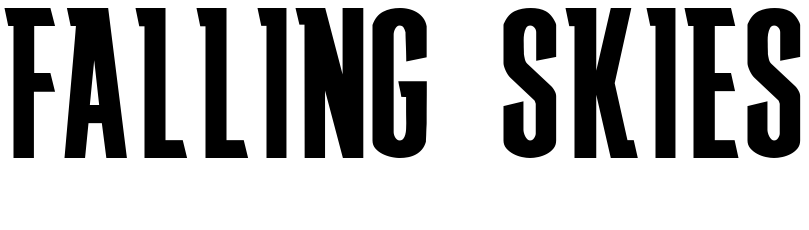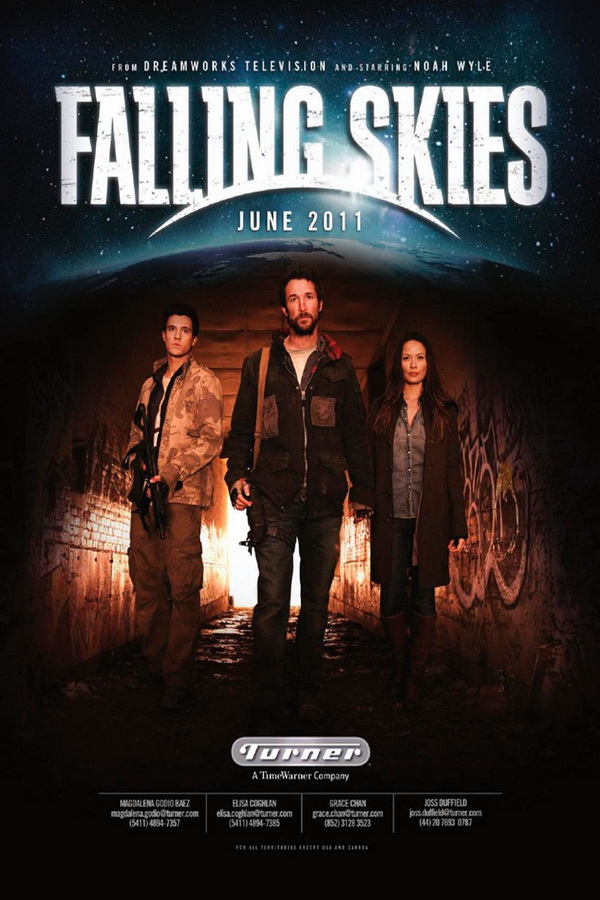
Falling Skies Font
Fonts in UseFalling Skies is a science fiction TV series that follows a group of survivors as they fight against an alien invasion and attempt to rebuild society. The series ran from 2011 to 2015 and stars Noah Wyle, Moon Bloodgood, and Maxim Knight.
You can download a free font called Falling Skies from the Fonts Used Section, designed by SpideRay, which features lettering very similar to the title of the TV series.